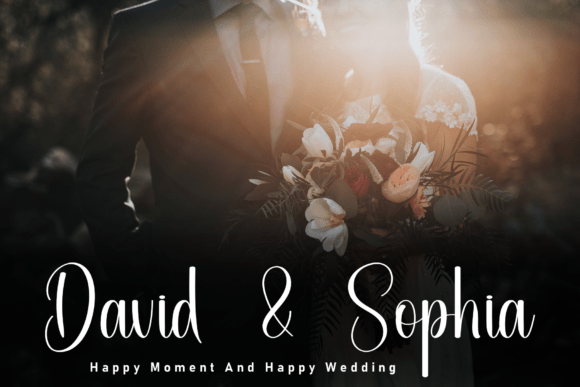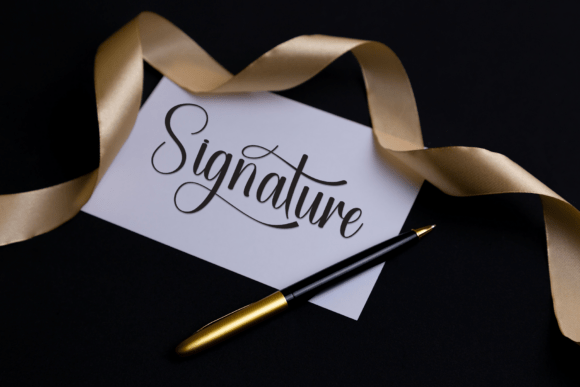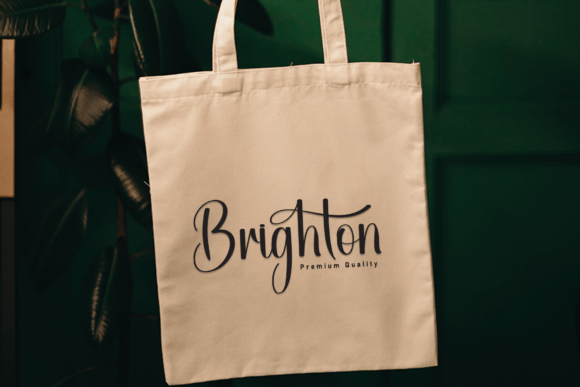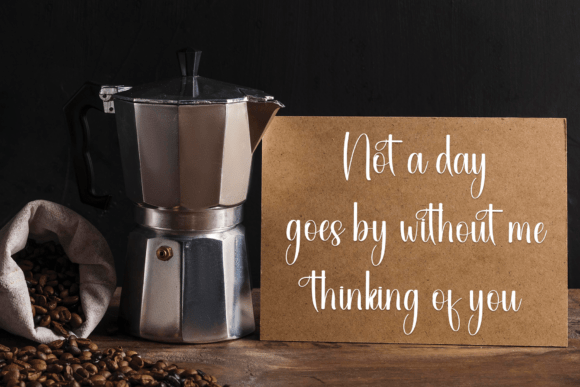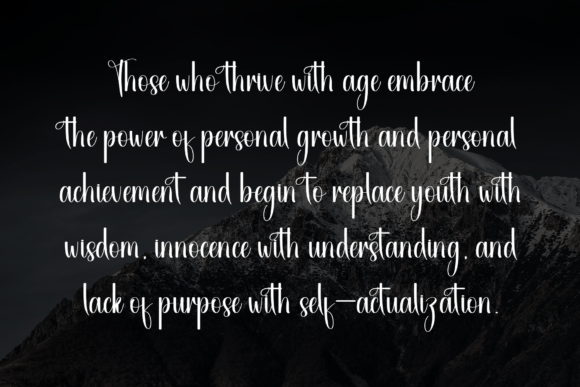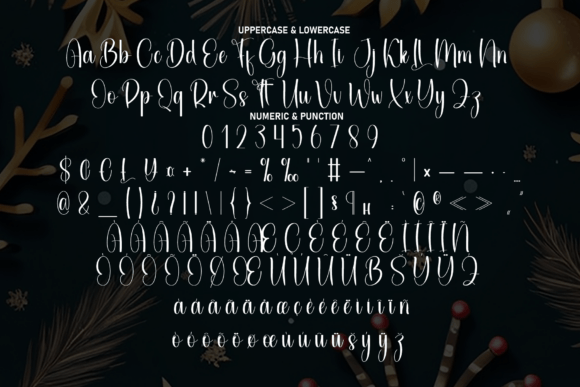
Christmas Stylish Font: Add a Touch of Cheery Charm to Your Designs
Are you looking for a font that can add a dash of personality and whimsy to your designs? Look no further than the Christmas Stylish Font, a remarkable and charismatic handwritten display font that’s sure to bring a smile to your face. With its irresistibly inviting appeal, this typographic treasure is perfect for designers and crafters who want to create endearing wedding invitations, heartwarming greeting cards, and other designs that require a sprightly, vivacious touch.
The Perfect Font for Wedding Invitations and Greeting Cards
When it comes to creating wedding invitations and greeting cards, you want a font that’s both elegant and playful. The Christmas Stylish Font fits the bill perfectly, with its gentle yet delightful aspect that adds a touch of sophistication to any design. Whether you’re designing a wedding invitation, a birthday card, or a holiday greeting, this font is sure to make your design stand out from the crowd.
Unleash Your Creativity with a Versatile Font
One of the best things about the Christmas Stylish Font is its inherent versatility. This font can be used in a wide range of designs, from formal wedding invitations to casual social media posts. Its unique charm and character make it perfect for designers and crafters who want to add a personal touch to their designs. Whether you’re creating a logo, a brochure, or a website, this font is sure to elevate your design to the next level.
Transform Your Designs into Visually Stimulating Pieces of Art
Mundane designs can be a thing of the past with the Christmas Stylish Font. This font has a way of seamlessly morphing your designs into visually stimulating pieces of art that are sure to capture the attention of your audience. With its cheery charm and positivity, this font is perfect for designers and crafters who want to create designs that are both beautiful and engaging.
Key Features of the Christmas Stylish Font
- Handwritten display font: The Christmas Stylish Font is a handwritten display font that’s perfect for adding a personal touch to your designs.
- Cheery charm and positivity: This font emits a ceaseless wave of cheery charm and positivity, making it perfect for designers and crafters who want to create designs that are both uplifting and engaging.
- Versatile: The Christmas Stylish Font is incredibly versatile, making it perfect for a wide range of designs, from formal wedding invitations to casual social media posts.
- Gentle yet delightful aspect: This font has a gentle yet delightful aspect that adds a touch of sophistication to any design.
The Christmas Stylish Font is a remarkable and charismatic handwritten display font that’s perfect for designers and crafters who want to add a touch of personality and whimsy to their designs. With its cheery charm and positivity, this font is sure to elevate your designs to the next level. Whether you’re creating wedding invitations, greeting cards, or other designs, this font is sure to make your design stand out from the crowd.